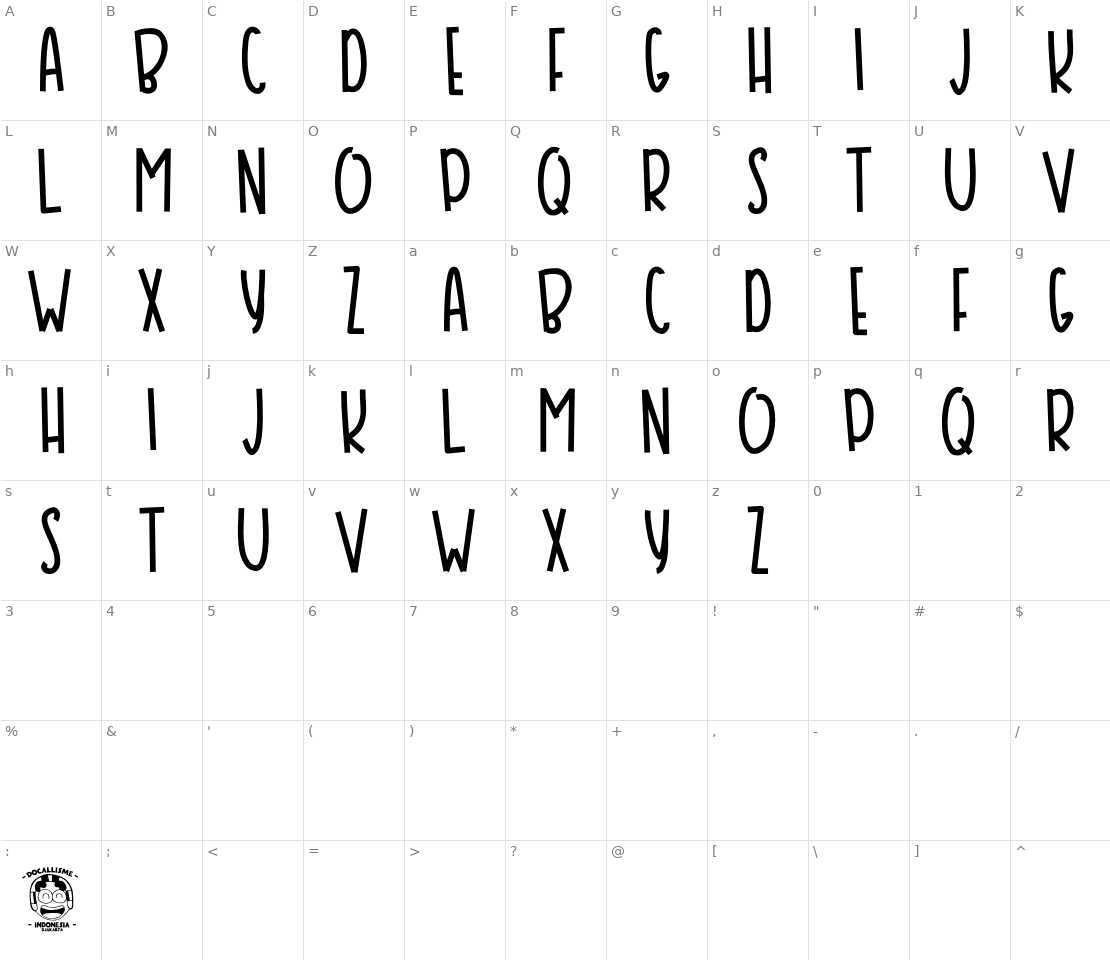
Bansky
Bansky is a condensed, uppercase comic-style face with a hand-drawn looseness that keeps it feeling quirky and approachable. The narrow letterforms have a playful wobble to them, like someone lettering a panel quickly with confidence rather than precision. By Docallisme HAS Feat Dutsky, it works well for headlines, poster text, and comic lettering where you want personality packed into a tight space.